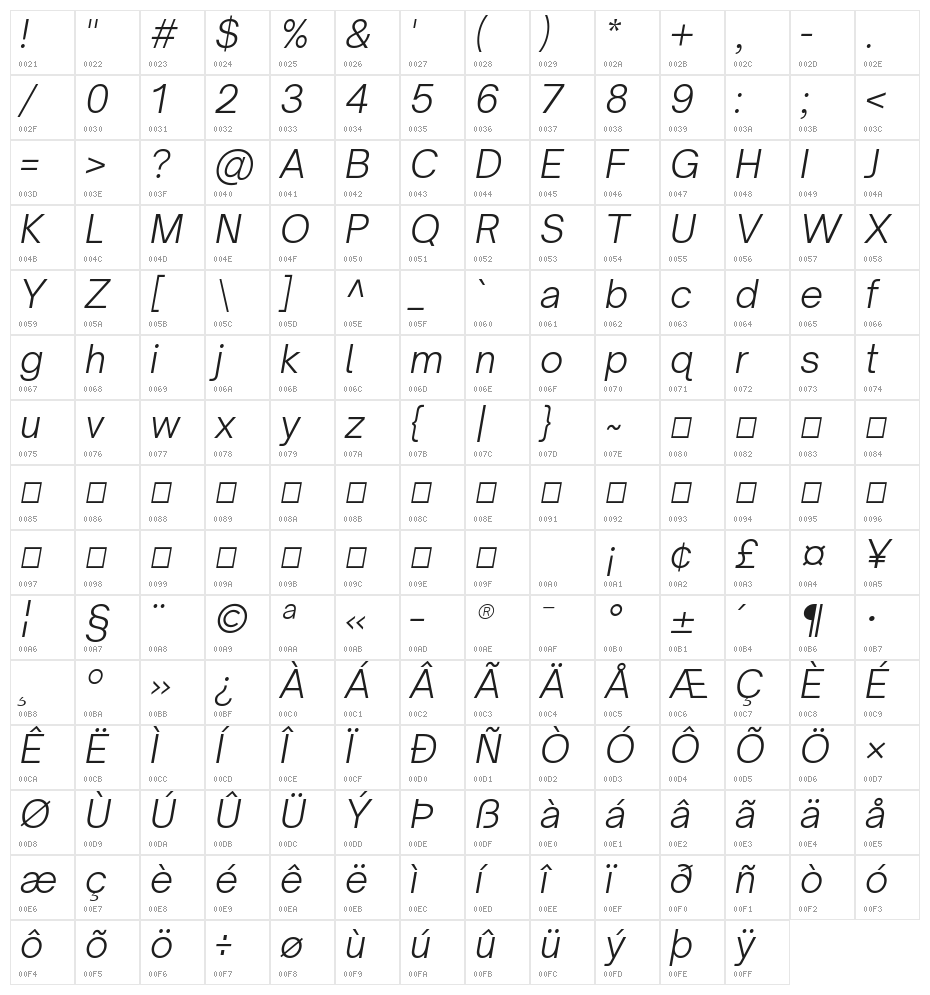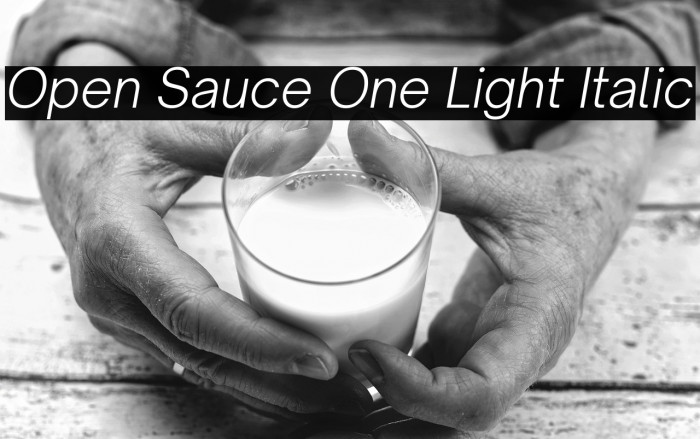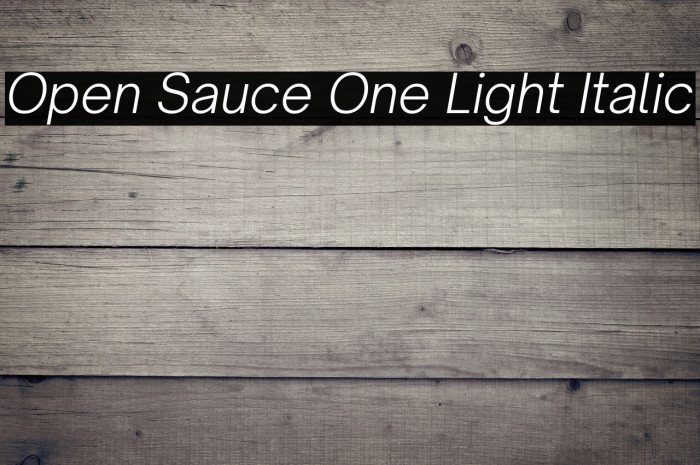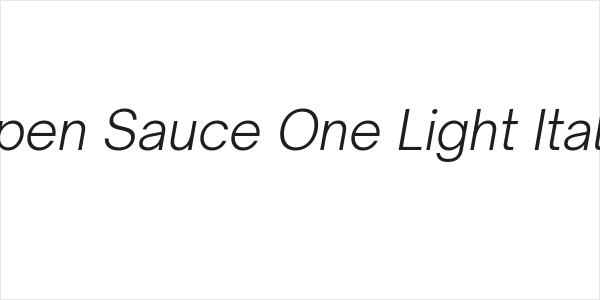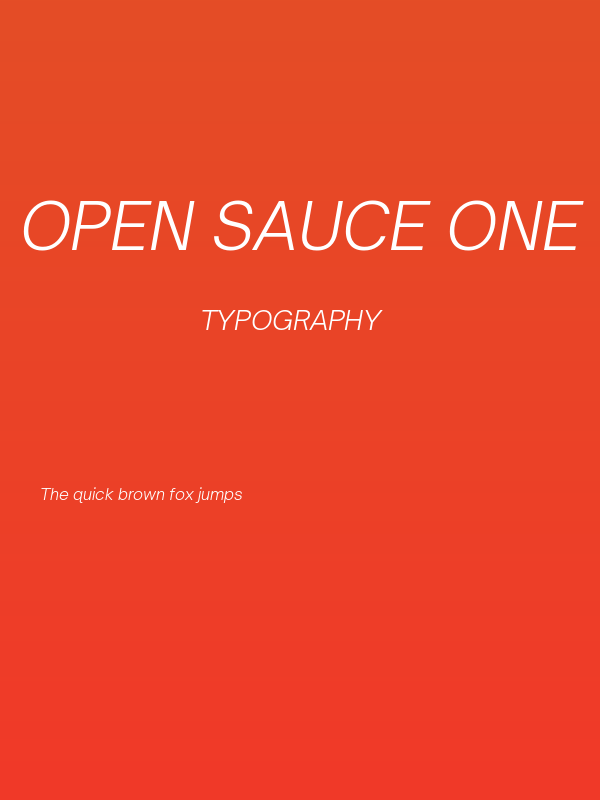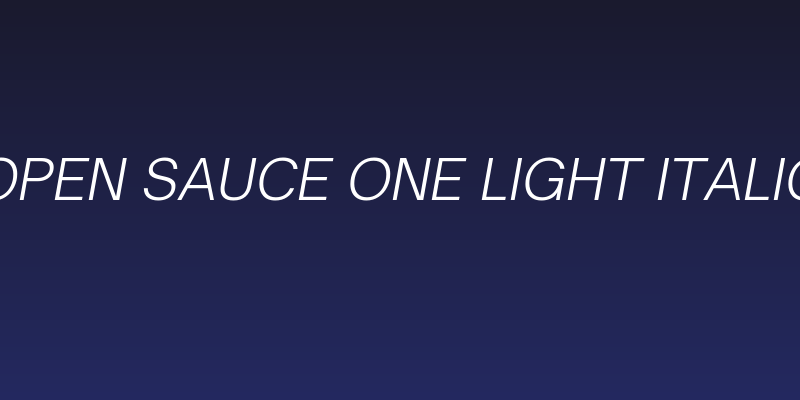
Open Sauce One Light Italic Font
Open Sauce One Light Italic Description
This font features a sleek and modern design with a light weight and italic style. The characters are slightly slanted, giving a sense of motion and elegance. The strokes are consistent and clean, with a low contrast between thick and thin lines, making it easy to read. The overall appearance is minimalistic and contemporary, suitable for a variety of digital and print applications. The character spacing is normal, ensuring good readability across different sizes. This font is versatile and can be used in various design projects that require a modern and sophisticated touch.
| Proposed Projects | Ideal for digital interfaces, modern branding, editorial design, and minimalist posters. |